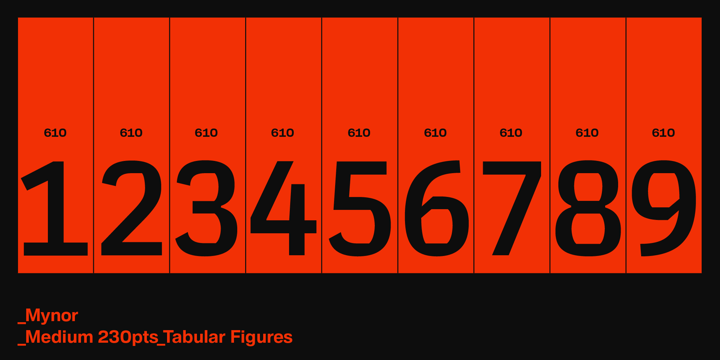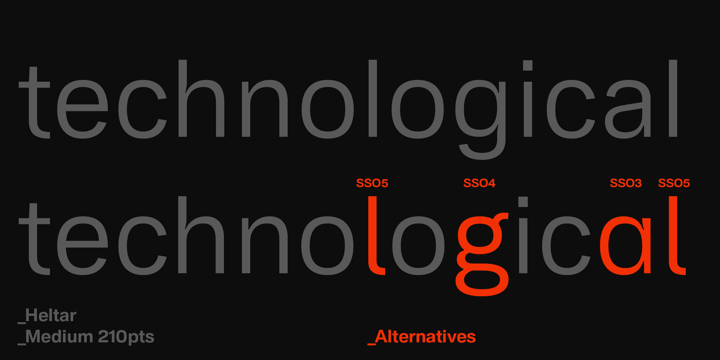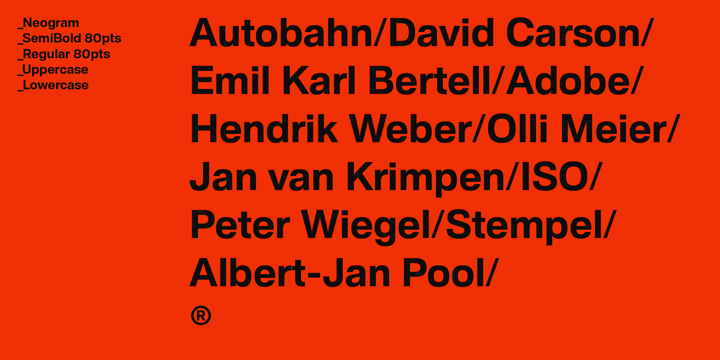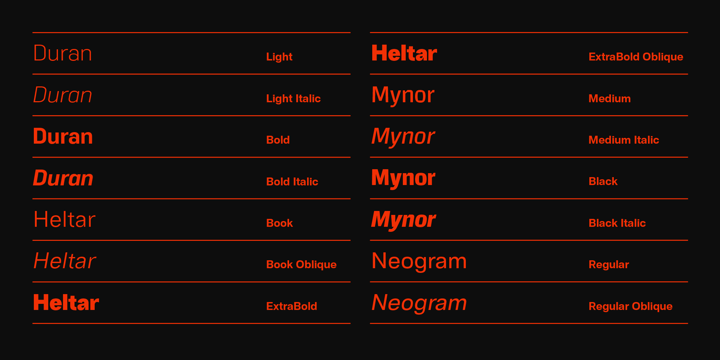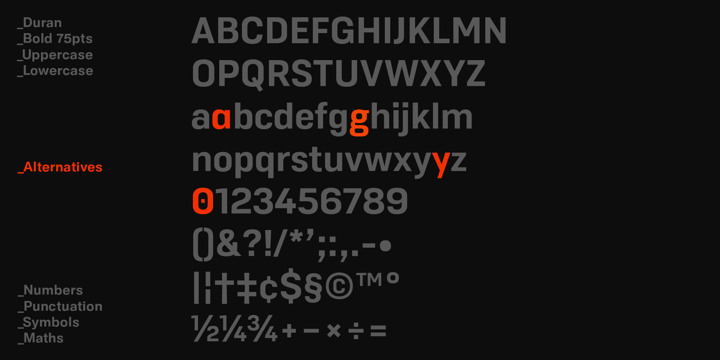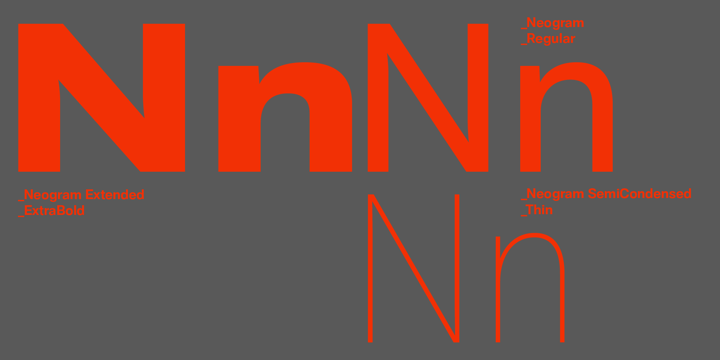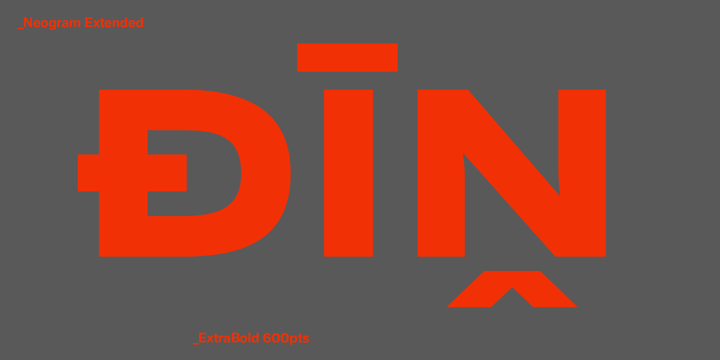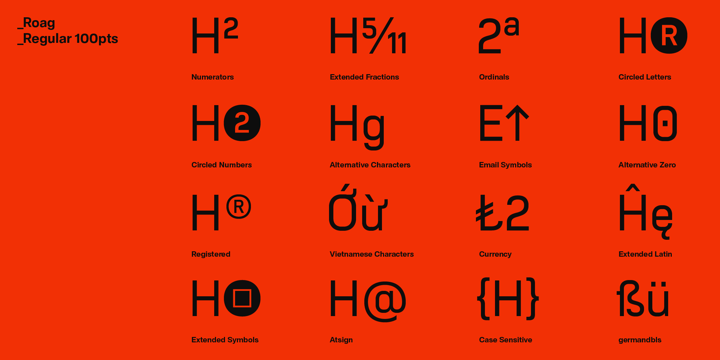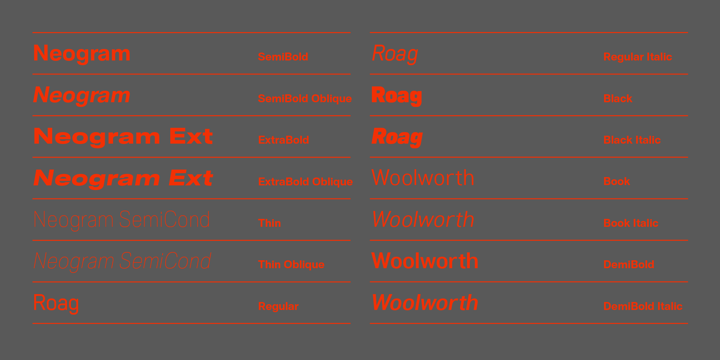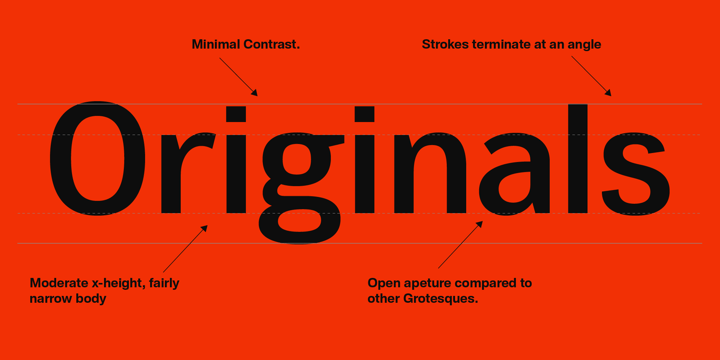
Industrialist
Introducing Industrialist, a compilation of geometric and grotesque style fonts from The Northern Block. Featuring technical letterforms and robust construction, this bundle offers the perfect combination of strength and flexibility, ideal for large-scale headlines and detailed body text.